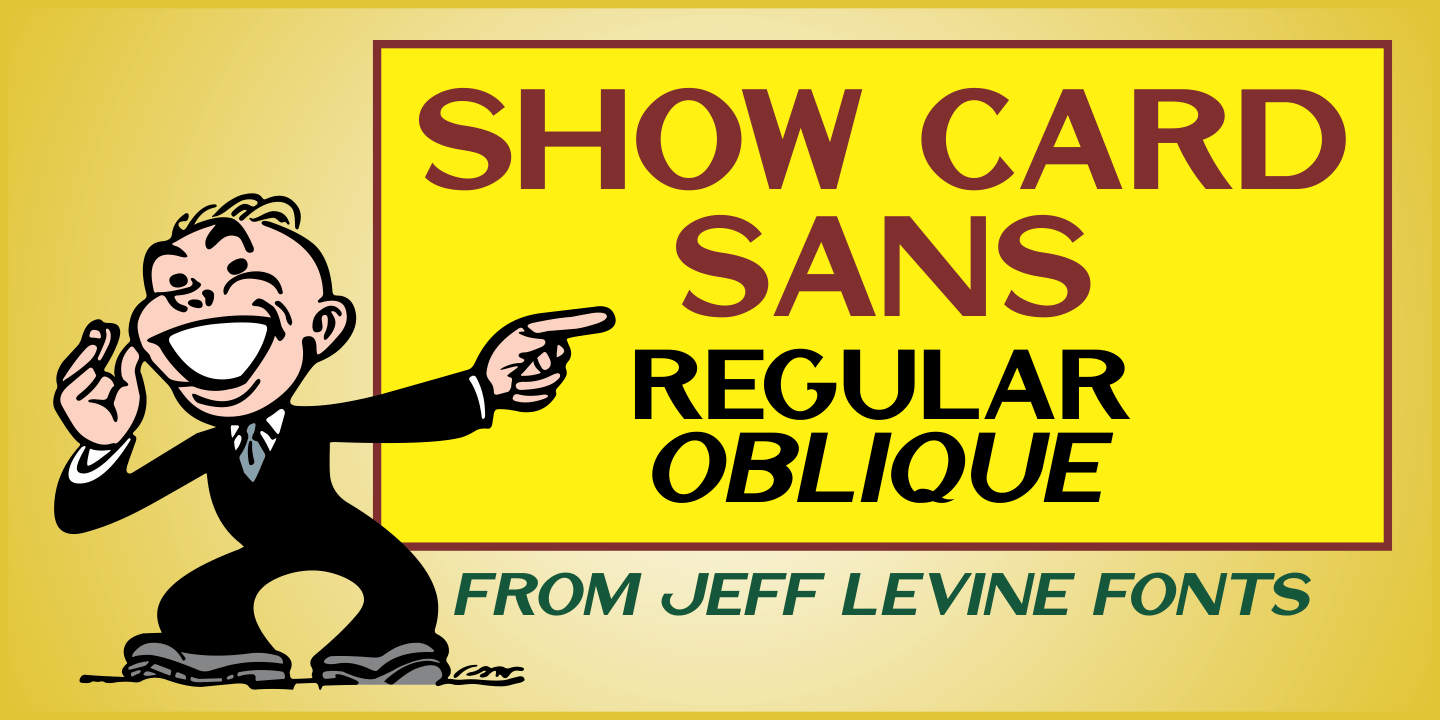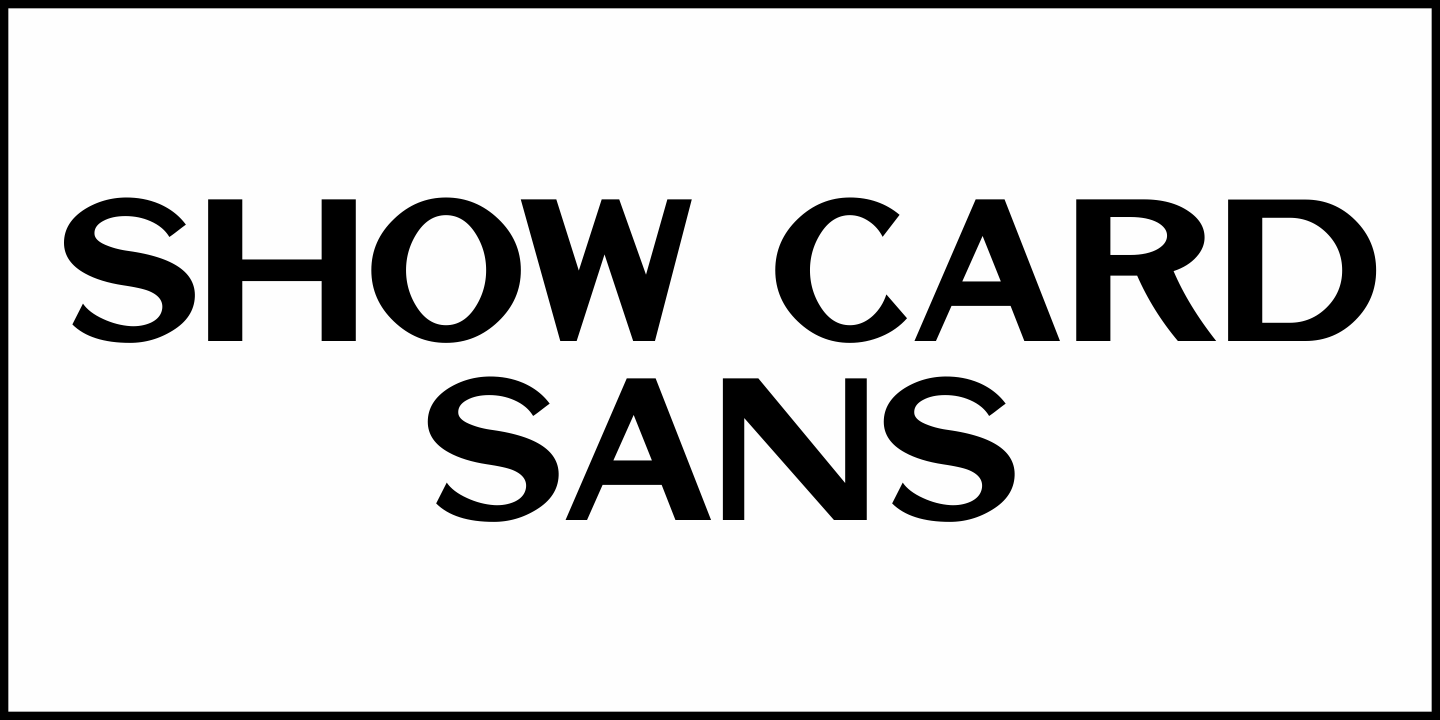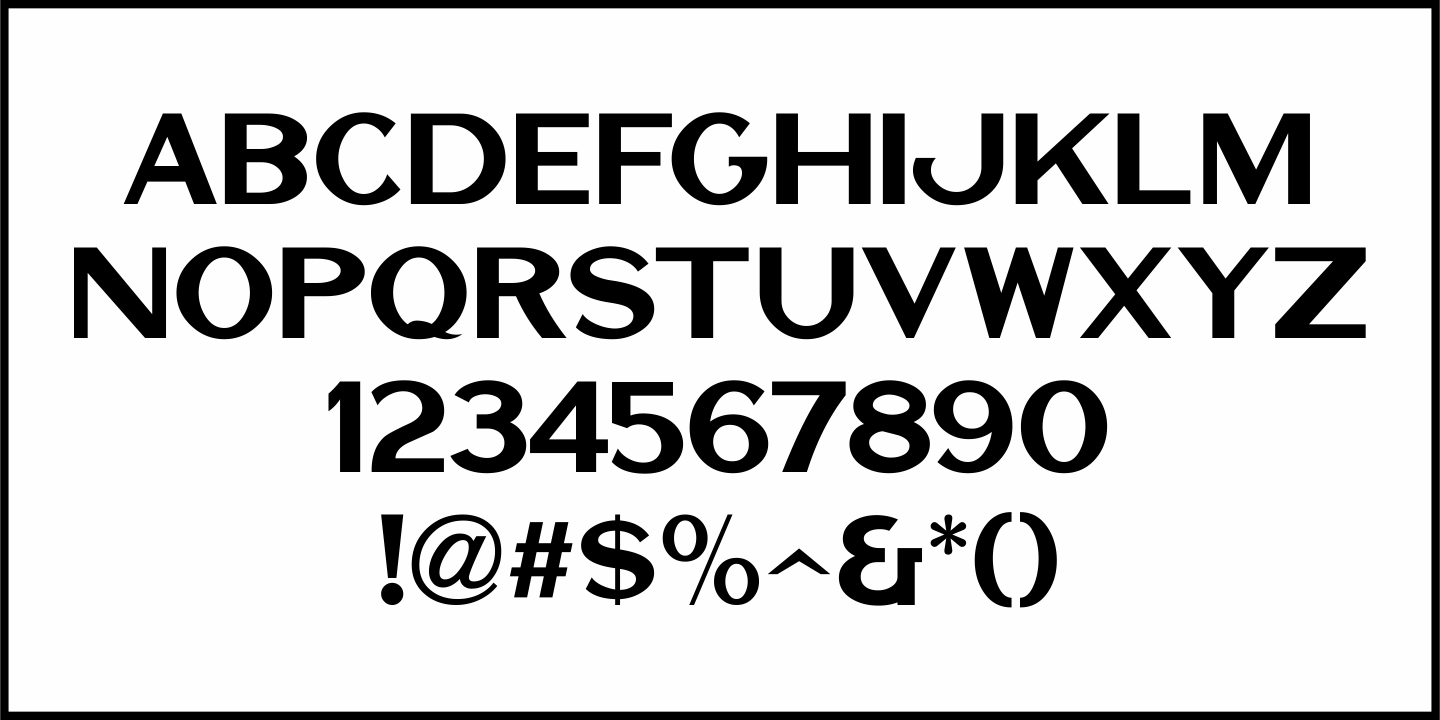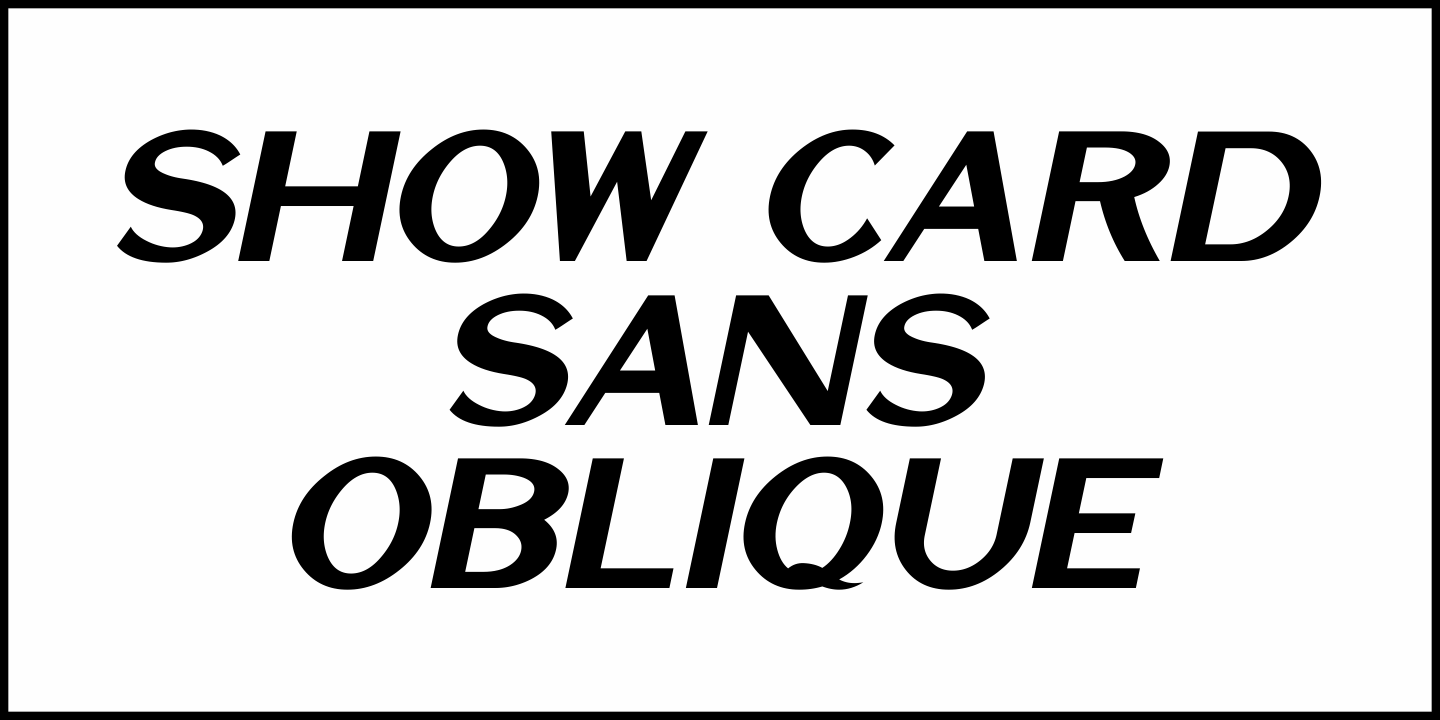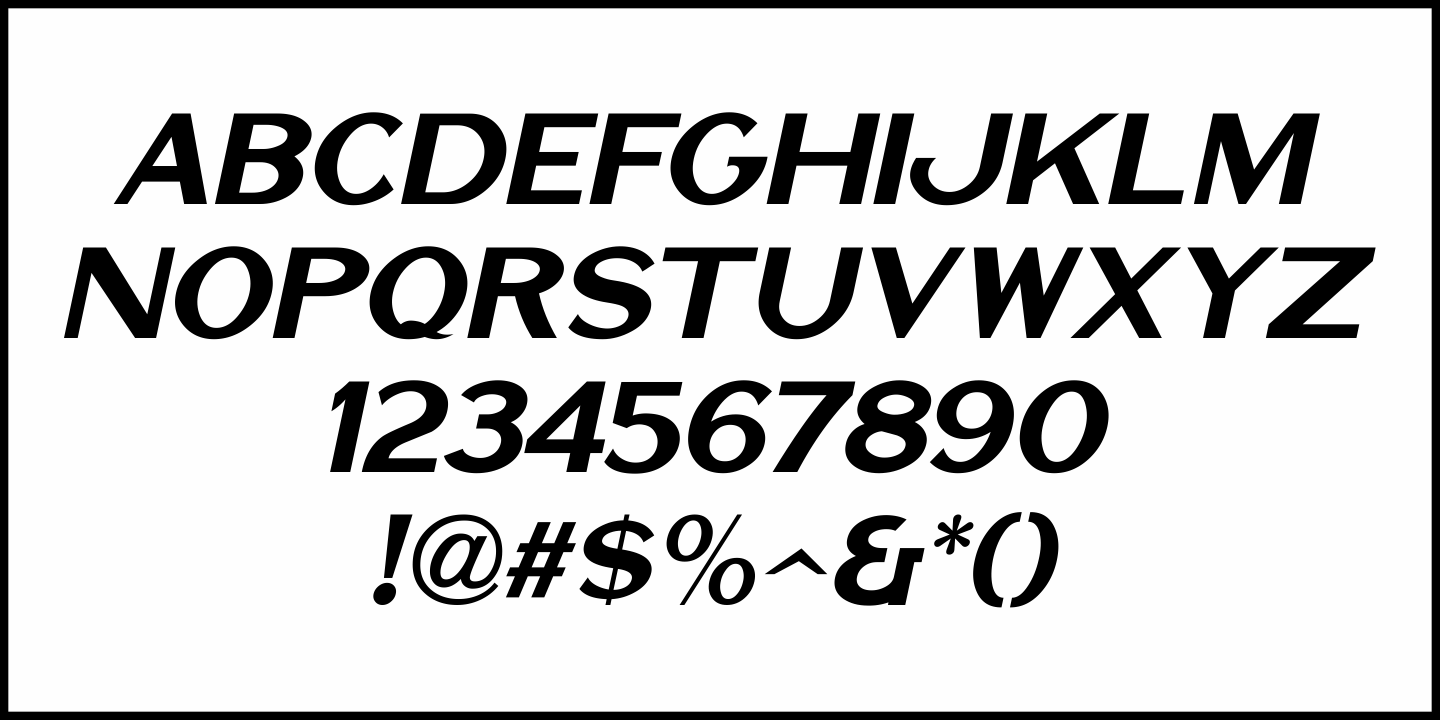
Show Card Sans
Show Card Sans JNL (available in both regular and oblique versions) is based on a chart showing the basic construction of sans serif lettering in the 1922 instruction book “Modern Show Card Writing”.
Show Card Sans JNL Regular by Jeff Levine Fonts